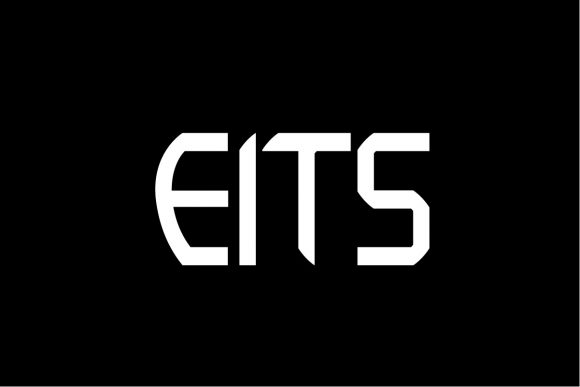
HomePersonal Use FreeEits Personal Use Free Eits FacebookTwitterPinterestWhatsApp 1 of 3 About Eits Font Eits is a simple and sharp looking display font, that will truly inspire your works.Use this font for your designs and explore its endless possibilities. DOWNLOAD NOW People also explored Buttey Honey Font Vinylatte Font Amazed Breath Font Metafora Font Austria Font Special Night Font Flopy Font Sparkling Bright Duo Font Lovely Soulmate Font 165 0 TagsEitsEits Font Previous articleTanpaxNext articleEloquence LEAVE A REPLY Cancel reply Comment: Please enter your comment! Name:* Please enter your name here Email:* You have entered an incorrect email address! Please enter your email address here Website: Save my name, email, and website in this browser for the next time I comment. Personal Use Free Boronic Personal Use Free Read more about this font Anggiana Personal Use Free Read more about this font Hiters Personal Use Free Read more about this font Beloved Script Personal Use Free Read more about this font BLOG Free Fonts Risk: Why Free Fonts Can Be Dangerous for Designers Free Fonts Risk: Why Free Fonts Can Be Dangerous for Designers Using free fonts is a common practice in web and graphic design. However, the... Using Fonts in Digital Marketing: Tips to Strengthen Your Brand Identity The 10 Best Handwriting Fonts to Add Personality to Your Designs Elegant Wedding Invitation Fonts – Handwritten & Script Fonts